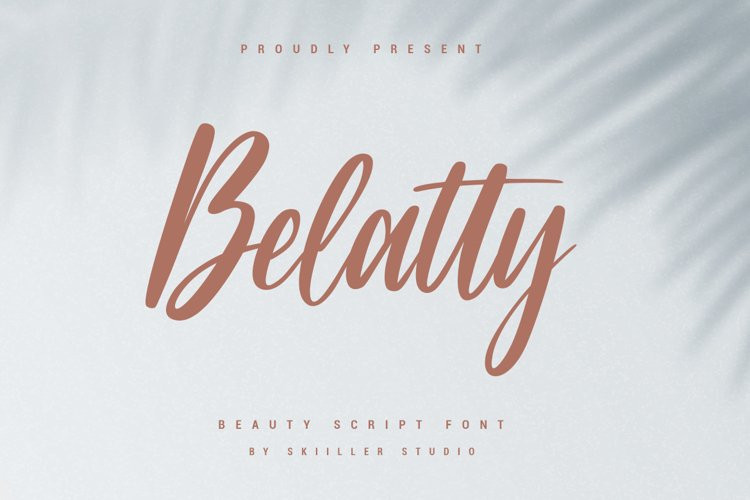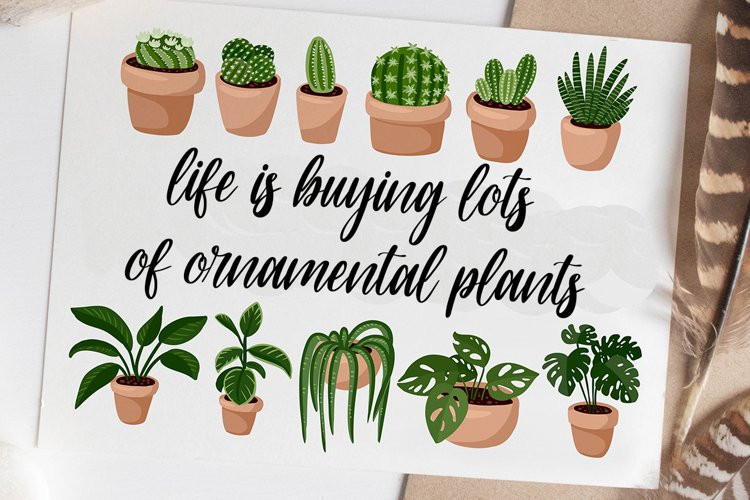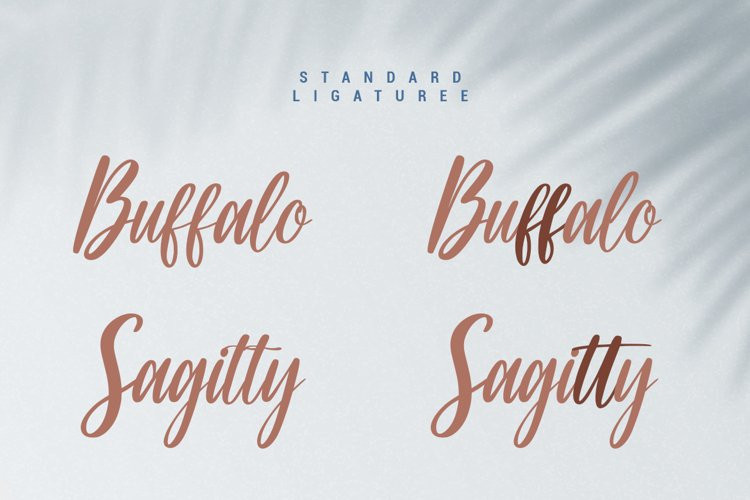
Belatty Font
BelattyBelatty is a beautiful light handwritten font with a unique feel and a stunning impact. It will add a luxury spark to any design project that you wish to create! This font is PUA encoded which means you can access all of the amazing glyphs and ligatures with ease!